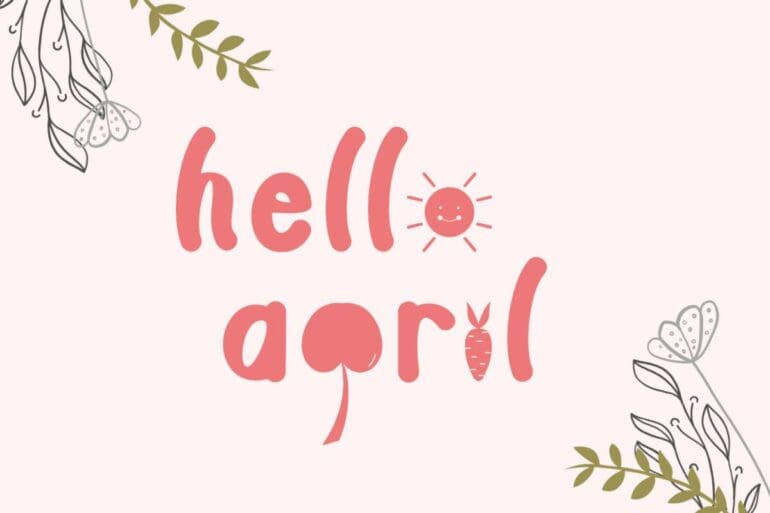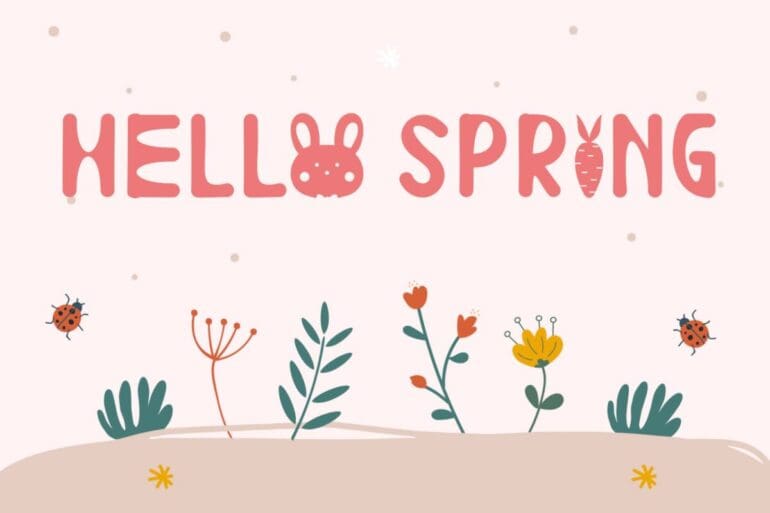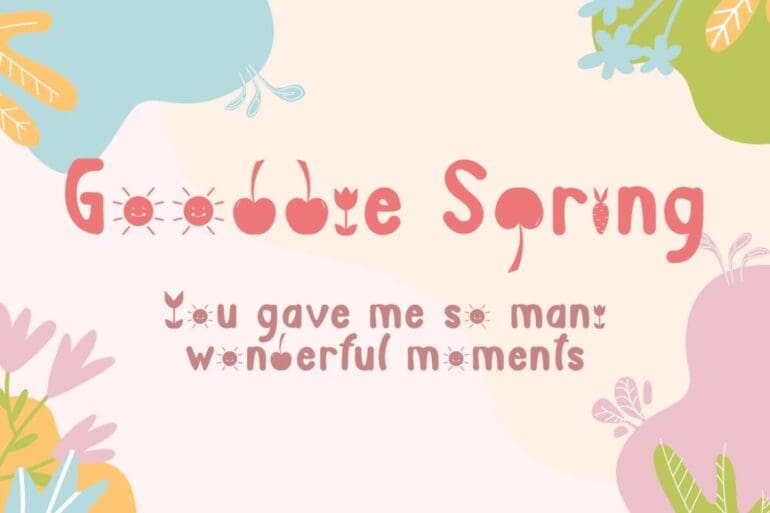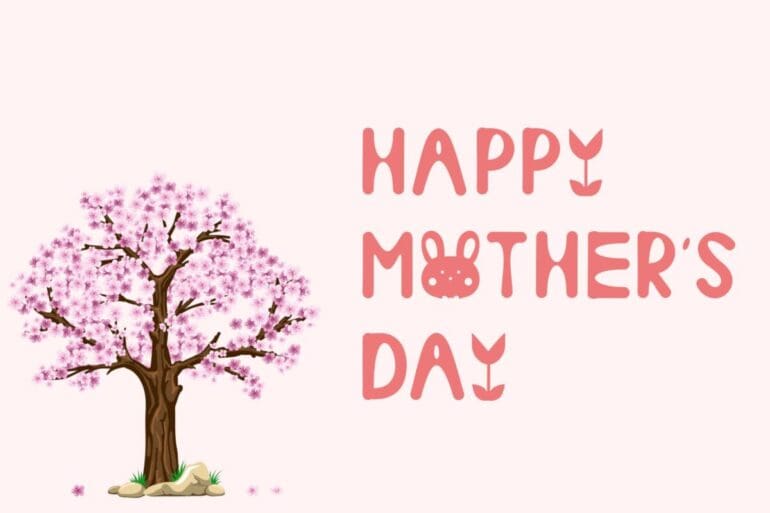
Soonday Font
Soonday is a cute display font with cute doll headdresses, cherries, a smiling sun, tulips, carrots, and cute bunny ears. This font can be used for spring, Easter, book titles, movie titles, cartoons, magazines, logos, and more. This font is equipped with upper- and lower-case letters, numerals, punctuation, and multilingual support.